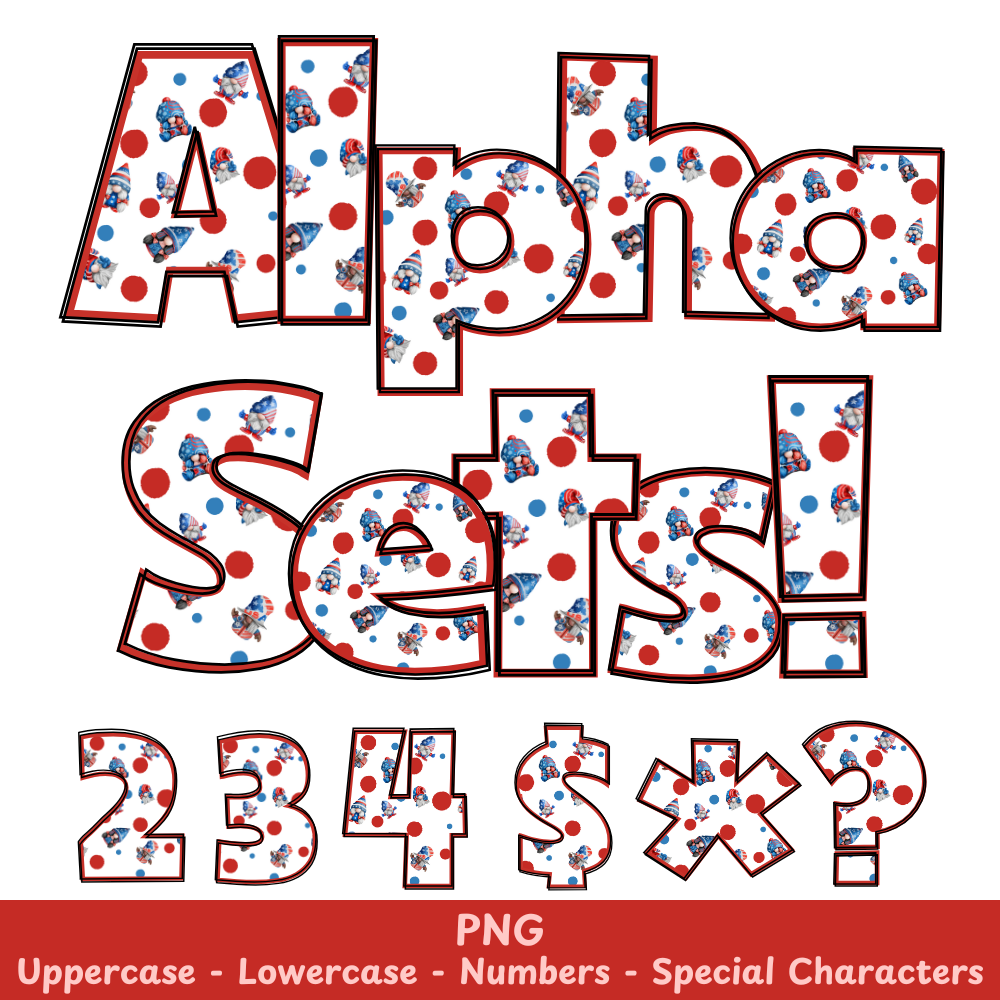
Fourth of July Gnomes PNG Font
Fourth of July Gnomes Alpha Set PNG Font Pack
Add a whimsical touch to your holiday projects with the Fourth of July Gnomes PNG Font. This versatile font includes high-quality images of gnomes in red, white, and blue, perfect for any Fourth of July design. Use it in your crafts, sublimation, and more for a fun and festive touch.